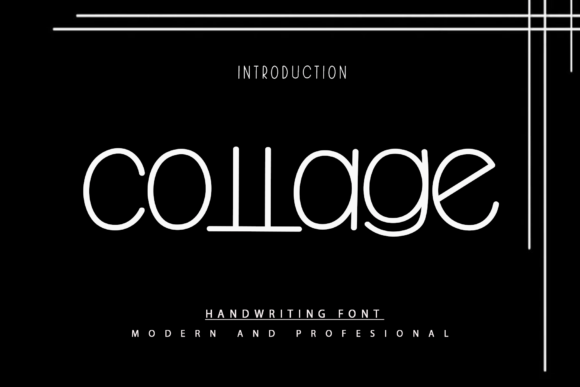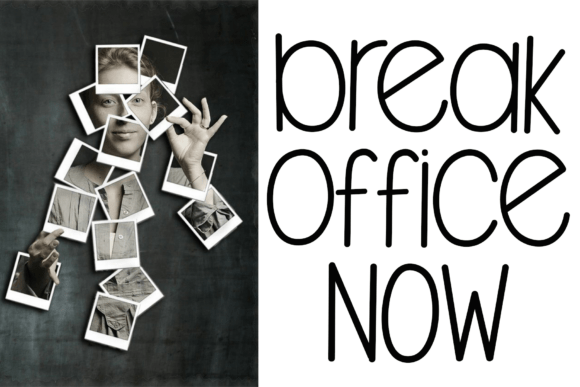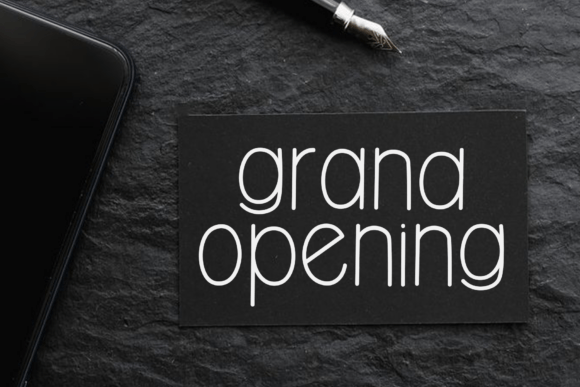
Collage Font: A Modern Handwritten Font for Branding & Social Media
About the Collage Font
Introducing the Collage Font, a beautifully crafted typeface designed to elevate your creative projects. Collage is a trendy handwritten font with a contemporary atmosphere and impeccable form, inspired by timeless classic calligraphy. It will add elegance and class to any of your design projects.
Collage Font’s elegant yet informal style makes it ideal for headlines, short text blocks on invitations or branding materials, and even stylish packaging where a touch of handwritten authenticity is desired. It excels in projects requiring a sophisticated yet approachable feel. Avoid using it for body text or UI elements; its delicate strokes and varying letterforms are not suited to long passages of text and would likely hinder readability.
Its contemporary yet classic feel pairs well with clean sans-serif fonts like Montserrat or Open Sans for a balanced contrast, offering readability where Collage Font provides the stylistic flourish. Alternatively, a geometric sans-serif like Futura could create a more modern and minimalist pairing. For a luxurious feel, consider pairing it with a classic serif like Garamond.
Collage Font’s overall personality is sophisticated yet approachable; it conveys a sense of both timeless elegance and modern trendiness, making it suitable for brands that aim for a balance of classic refinement and contemporary appeal.
Collage Font Usage Examples
Collage Font Example